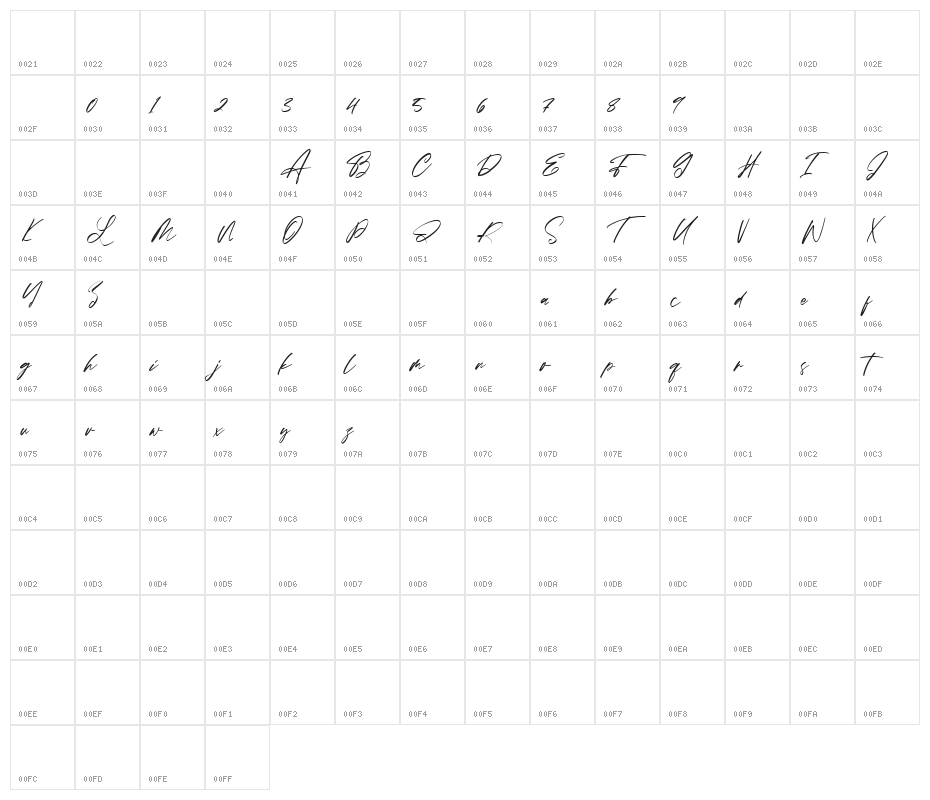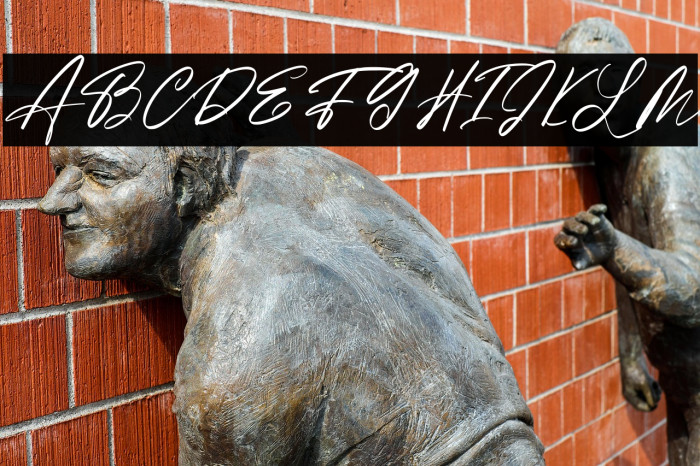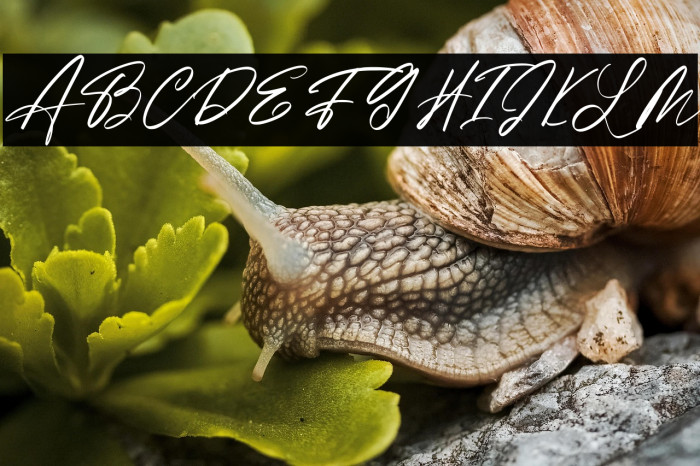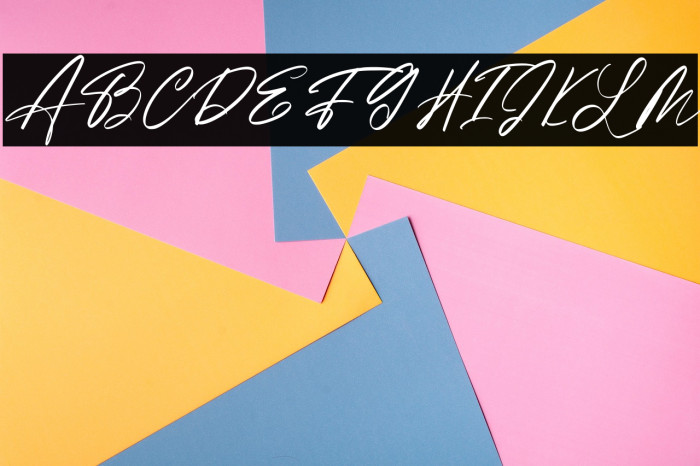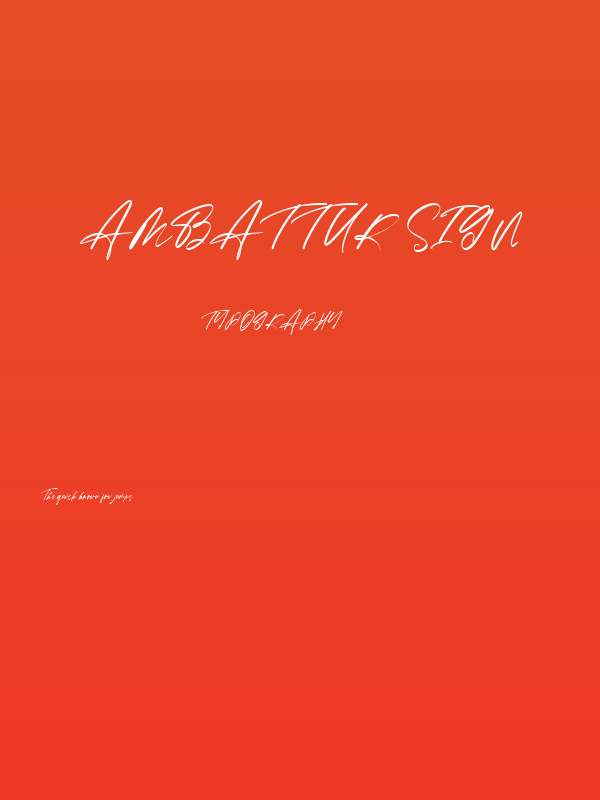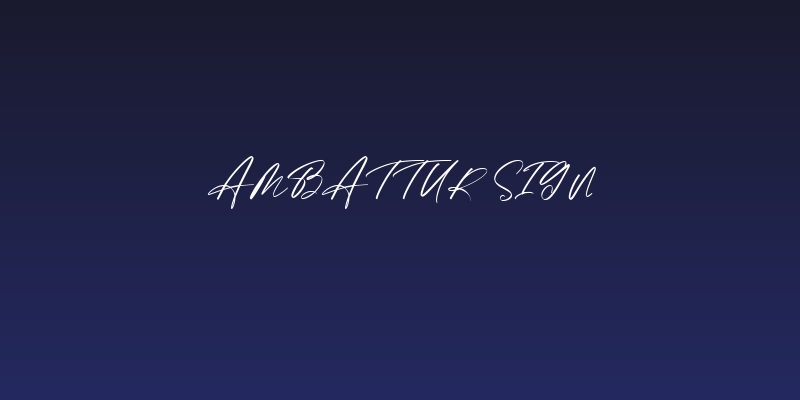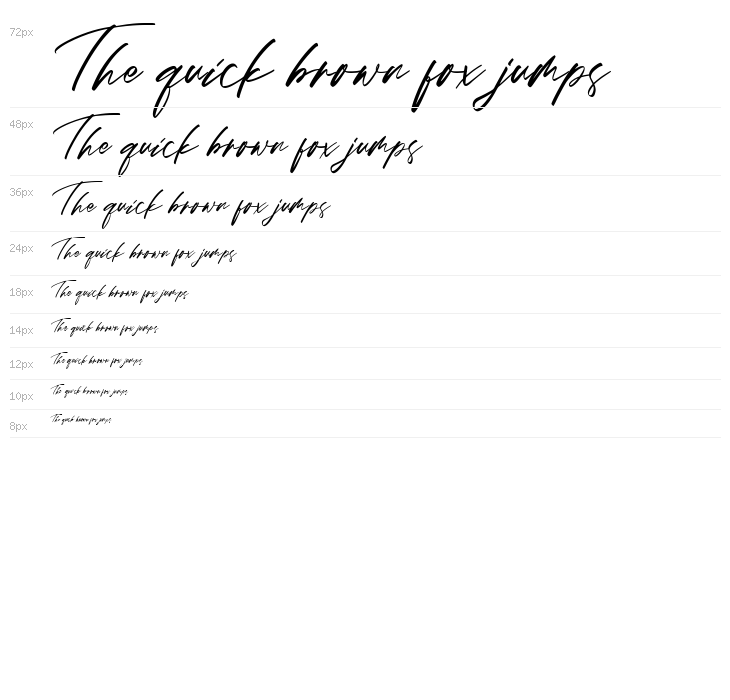
Ambattur Sign Font
Ambattur Sign Description
This font features a dynamic and fluid script style, characterized by its elegant and flowing letterforms. The strokes are smooth and connected, giving it a handwritten appearance that is both sophisticated and approachable. The uppercase letters are bold and prominent, while the lowercase letters maintain a consistent flow, enhancing readability. The numerals and special characters are designed to complement the overall style, ensuring a cohesive look across different uses. This font is ideal for projects that require a personal touch or a sense of elegance.
| Overall Style | Elegant |
| Use Case | Logos, Invitations, Personal stationery |
| Proposed Projects | Ideal for wedding invitations, branding, greeting cards, and personal stationery. |